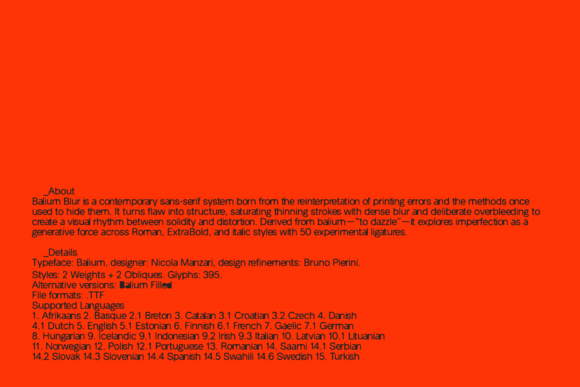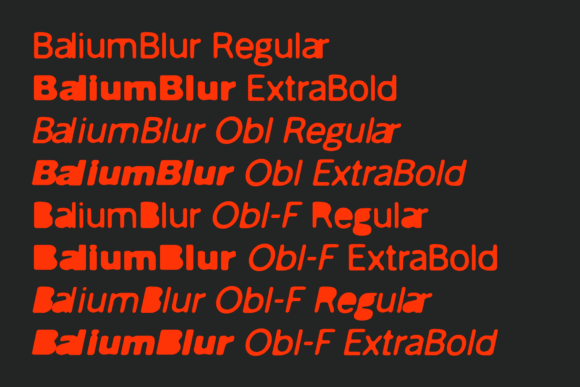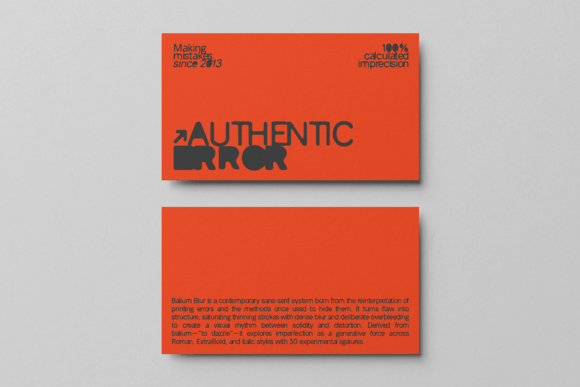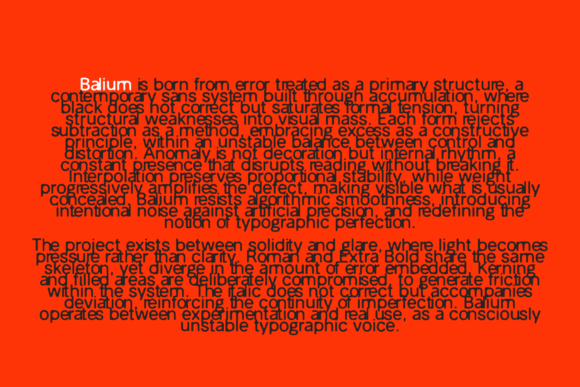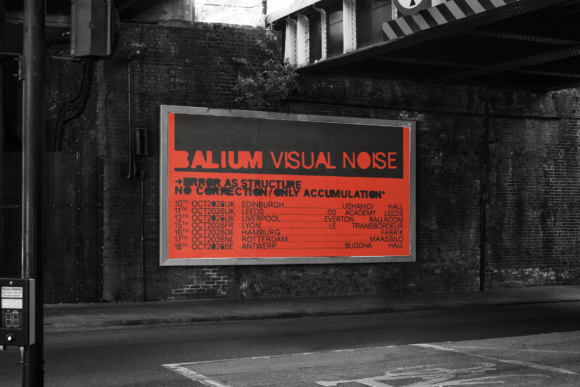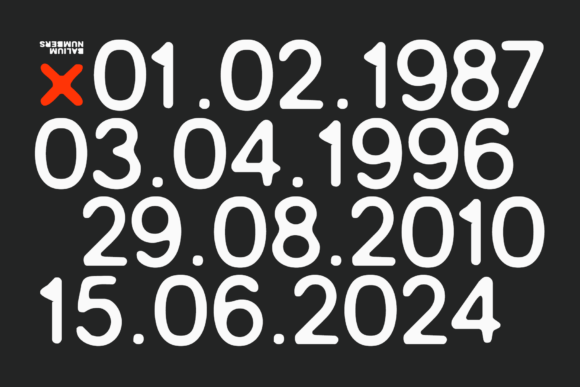
The Art of Imperfection: Introducing the Balium Blur Font
Have you ever stared at a typo on a vintage book and wondered if it was an accident or a deliberate choice? As designers, we’re often drawn to the beauty of imperfection, and that’s exactly what the Balium Blur Font is all about.
This contemporary sans-serif type system is born from the reinterpretation of printing errors and traditional techniques used to conceal them. With its Roman and Extra Bold weights, Balium Blur Font explores the intersection of contemporary typography, technology, and visual experimentation. By embracing controlled imperfection, designers can add a unique touch to their brand’s identity. Whether you’re looking to create a statement or simply add some character to your design, the Balium Blur Font is a valuable addition to any designer’s toolkit.
Key Features of Balium Blur Font
- Unique Characteristics: Balium Blur Font features a unique blur effect that gives it a stylized, hand-painted look, making it perfect for creative and artistic designs.
- Character Set: The font includes a comprehensive character set, including Latin, Cyrillic, and Greek alphabets, as well as a range of punctuation marks and symbols.
- Font Style: Balium Blur Font comes in a single style, but with a range of weights, from Light to Bold, allowing you to customize the font to suit your design needs.
Designer Review: Balium Blur Font
Overall, I was impressed with the Balium Blur Font. It’s a unique and stylish font that can add a touch of sophistication to any design project.
- Distressed Look**: The font’s distressed look gives it a worn, vintage feel that can be perfect for designs that require a nostalgic touch.
- Legibility**: Despite its distressed appearance, the font is surprisingly legible, making it easy to read and understand.
- Customization**: The font comes with a range of styles and weights, allowing designers to customize the look to suit their project’s needs.
- Overuse**: The font’s distressed look can become repetitive if overused, which may detract from the design’s overall impact.
- Limited Versatility**: The font may not be suitable for all types of projects, particularly those that require a clean and modern look.
- Not Ideal for Small Text**: Due to its distressed appearance, the font may not be ideal for small text sizes, where the characters may become difficult to read.
Overall, I think the Balium Blur Font is a great addition to any designer’s toolkit, but it’s essential to use it thoughtfully and in moderation to avoid overuse.
The Balium Blur Font is perfect for:
- Adding a touch of elegance to your designs.
- Creating a unique and eye-catching headline.
- Enhancing the visual appeal of your text-based content.
Remember to use the blur effect to enhance the font’s unique characteristics and make it stand out.
Q: Does Balium Blur support Unicode characters and languages?
Yes, Balium Blur supports a wide range of Unicode characters and languages, including Latin, Cyrillic, Greek, and many others. It also includes a comprehensive set of glyphs and ligatures to ensure proper rendering of complex scripts and languages.